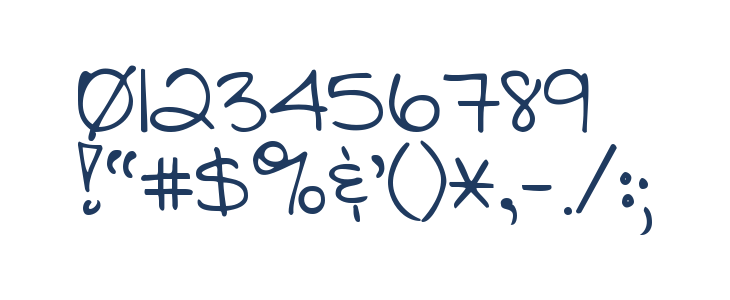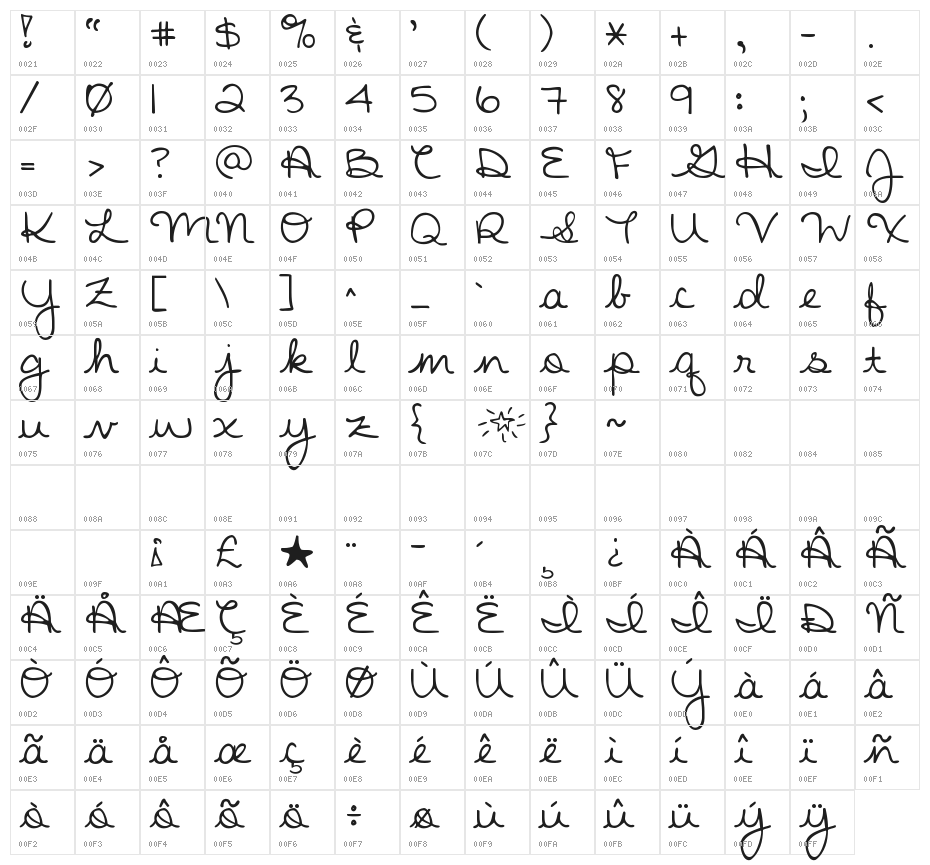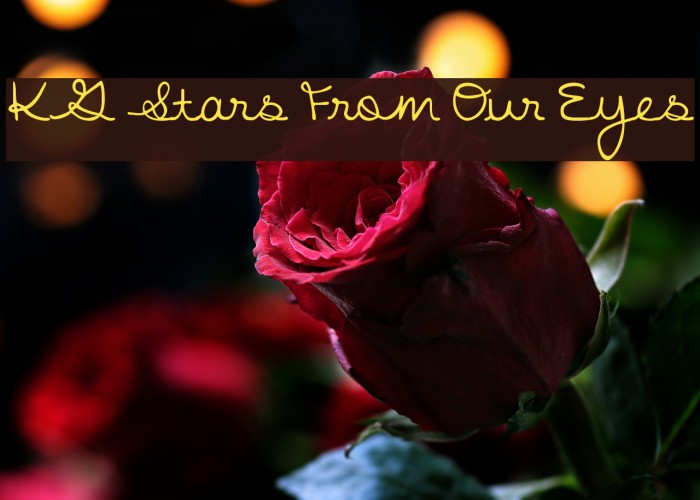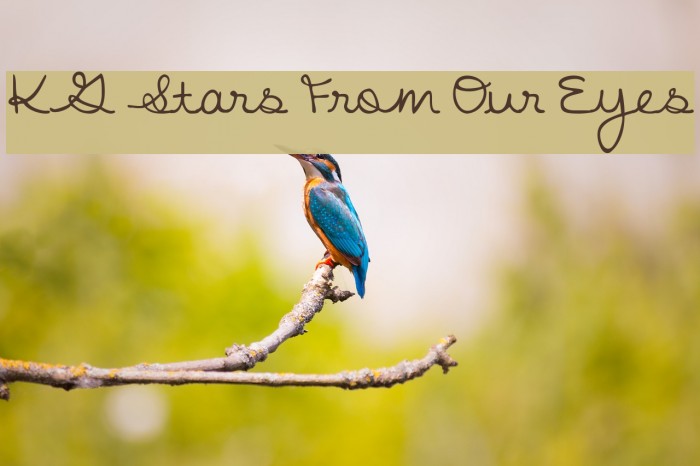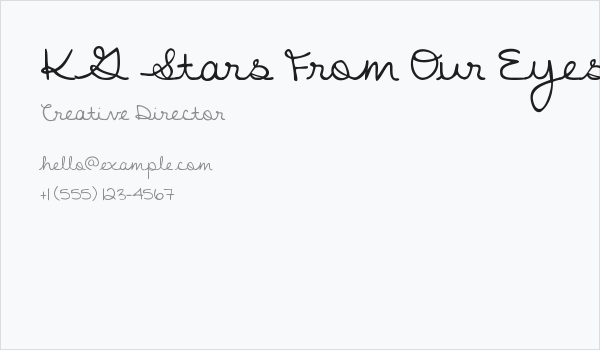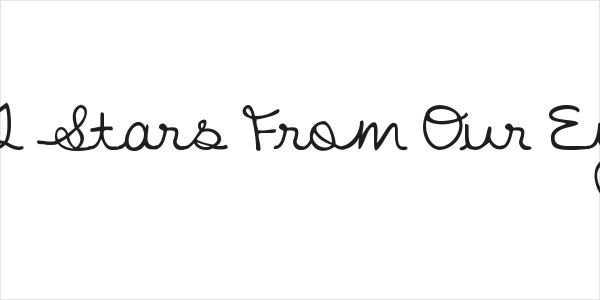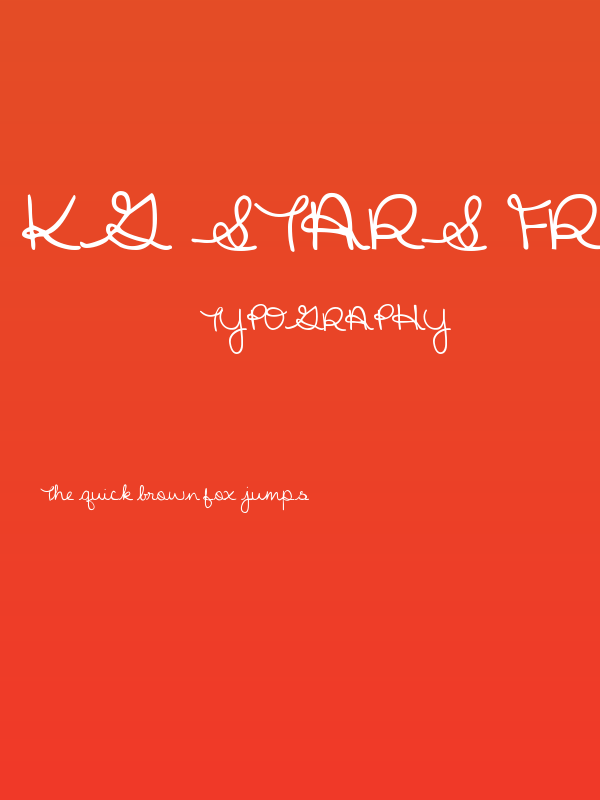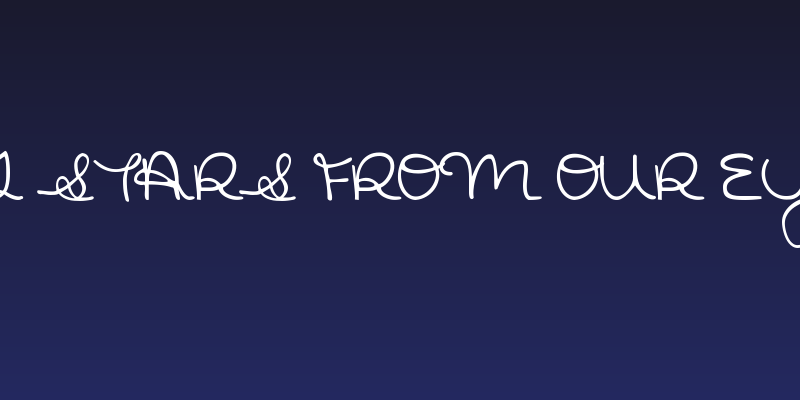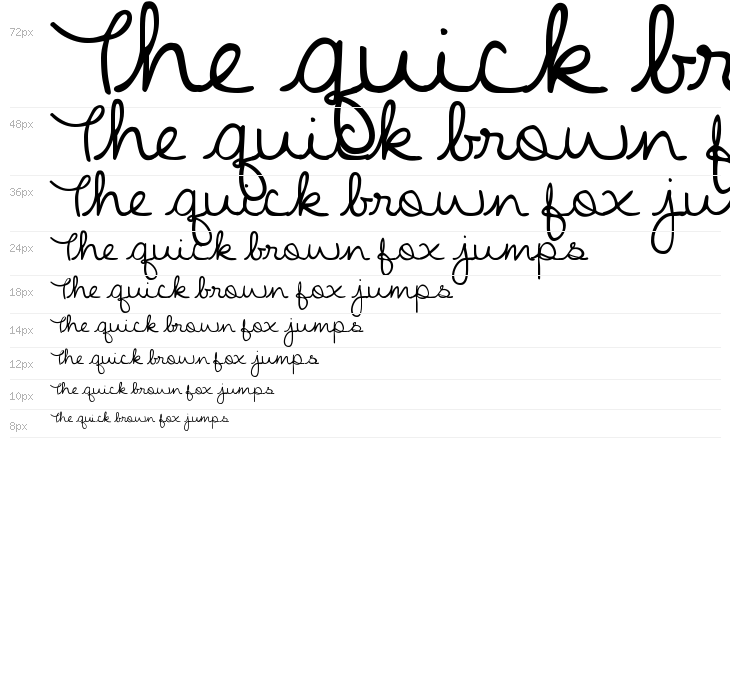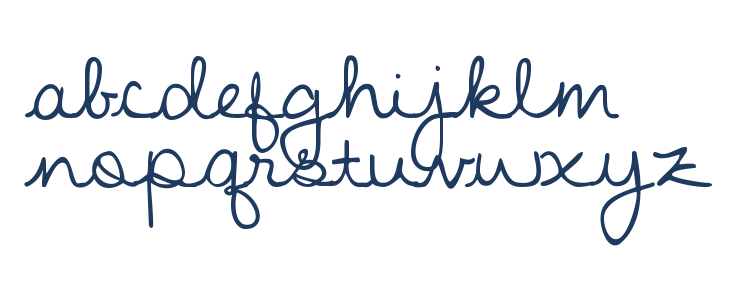
KG Stars From Our Eyes Font
KG Stars From Our Eyes Description
This font features a whimsical, handwritten style with a playful and casual appearance. The characters are interconnected, giving it a flowing script-like quality. The strokes are smooth and consistent, with a slight variation in thickness that adds to its charm. The uppercase letters are slightly larger and more pronounced, while the lowercase letters maintain a consistent height, enhancing readability. Numbers and special characters are designed to match the playful aesthetic, making this font versatile for creative projects.
| Use Case | Logos, Invitations, Social Media Graphics |
| Proposed Projects | Ideal for greeting cards, invitations, personal branding, and creative social media graphics. |